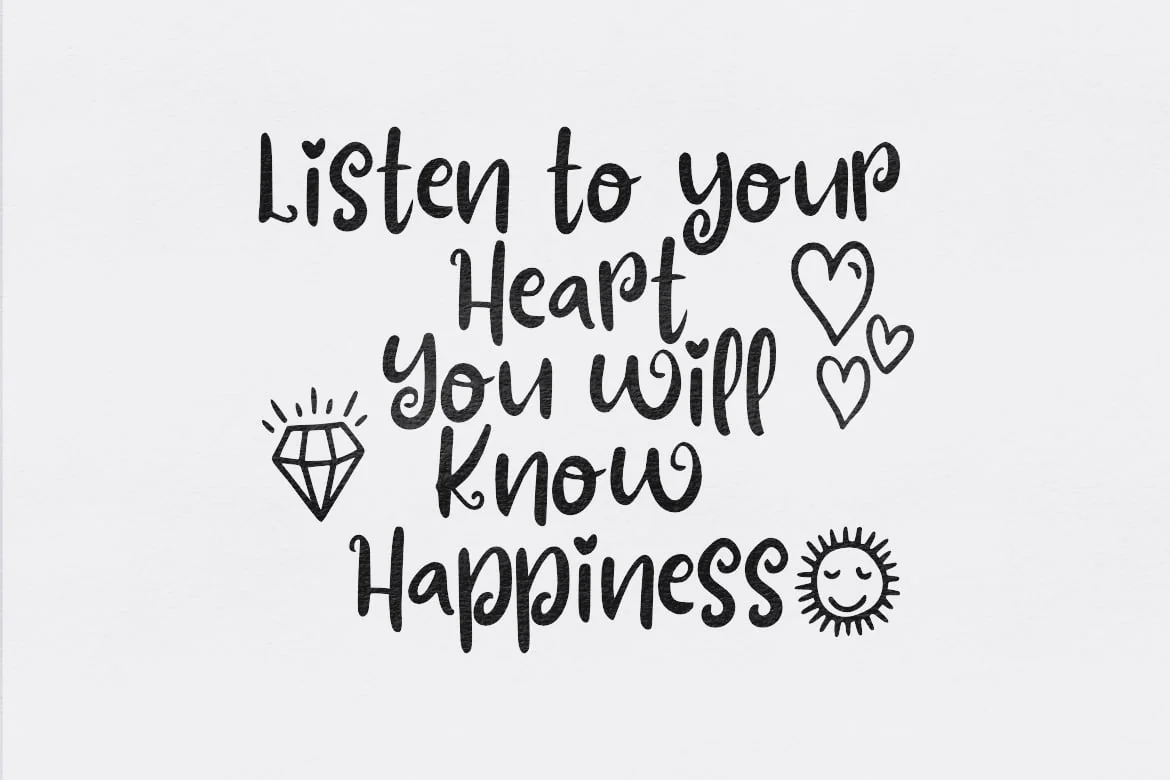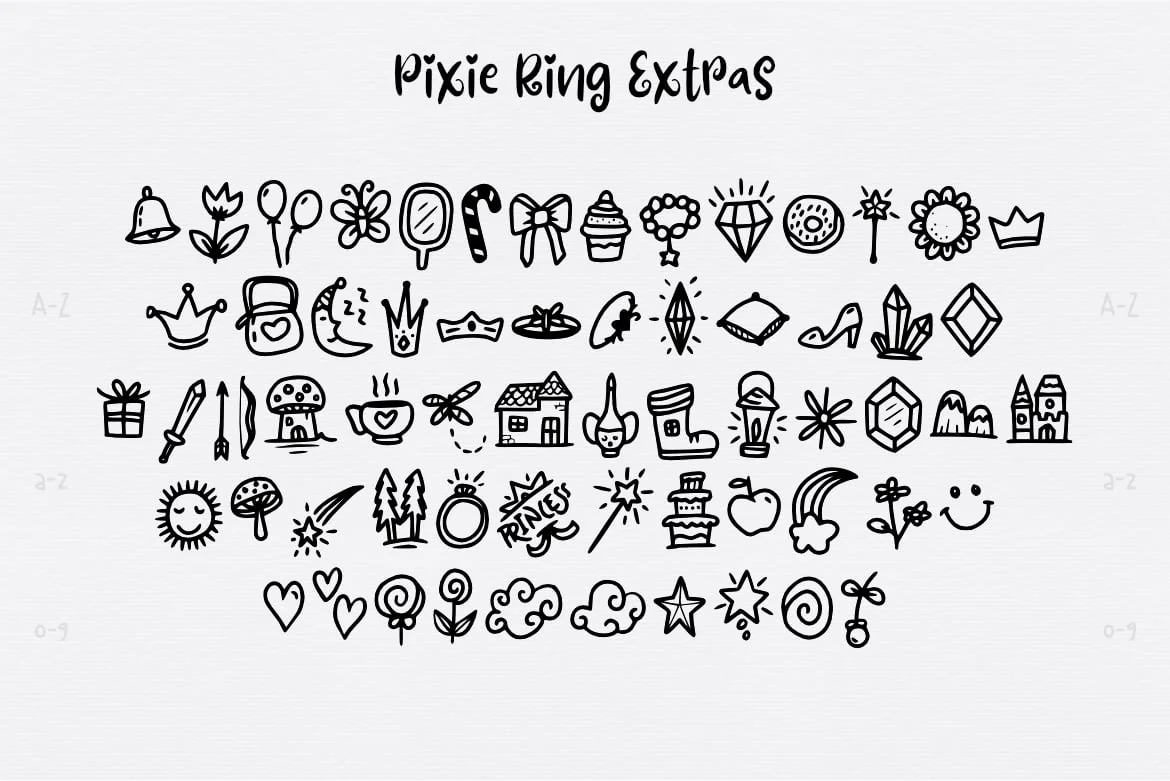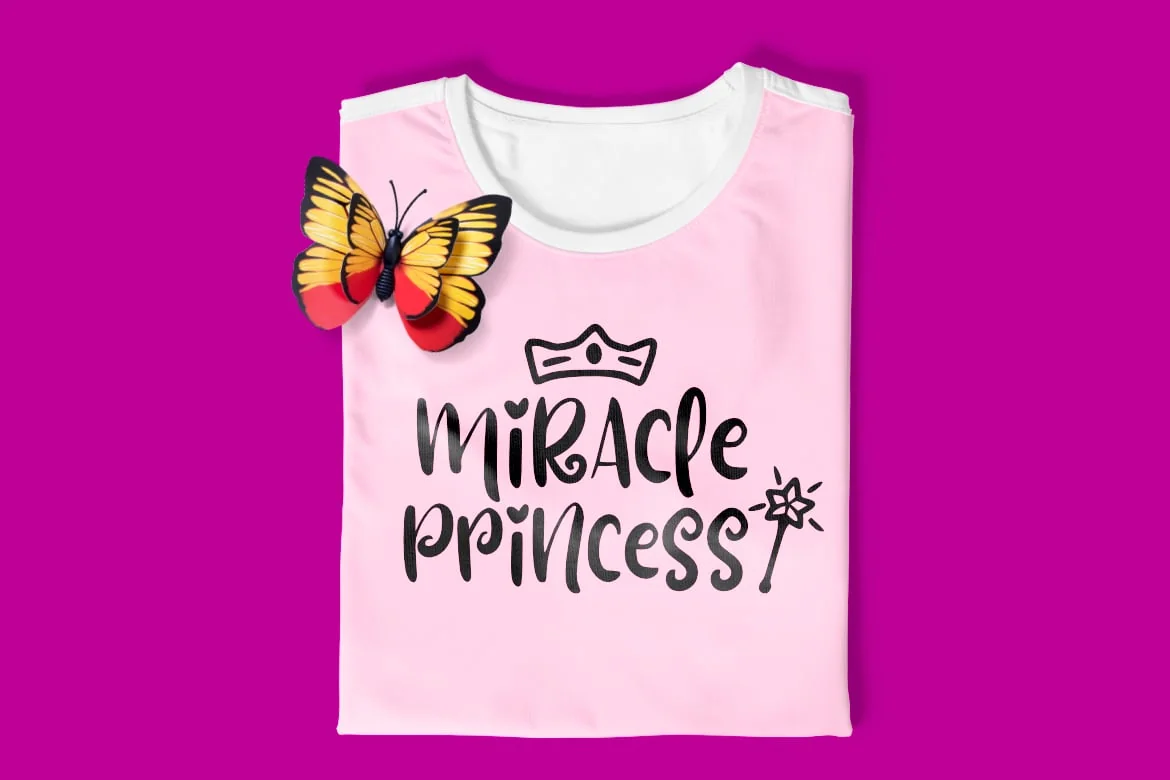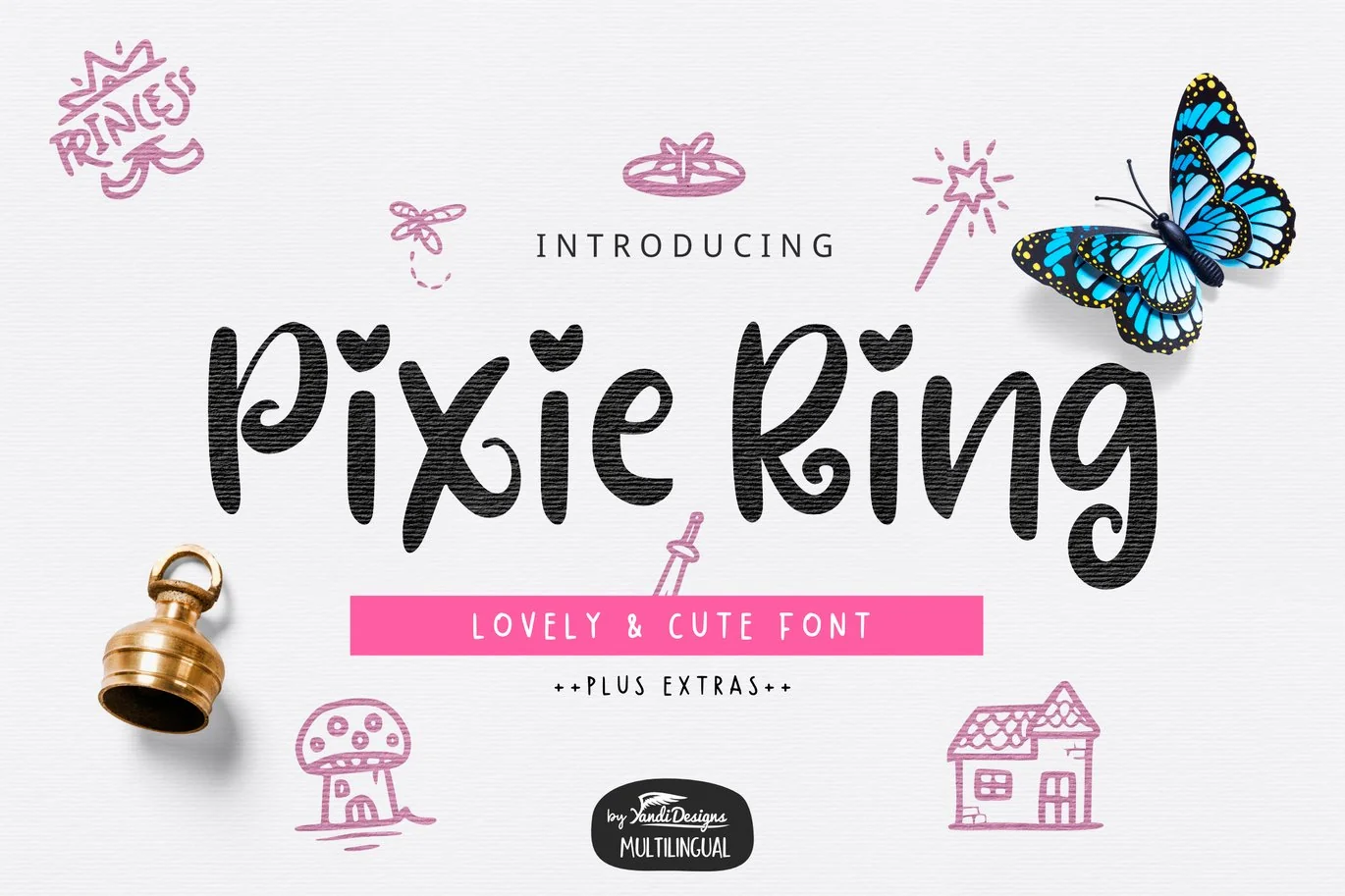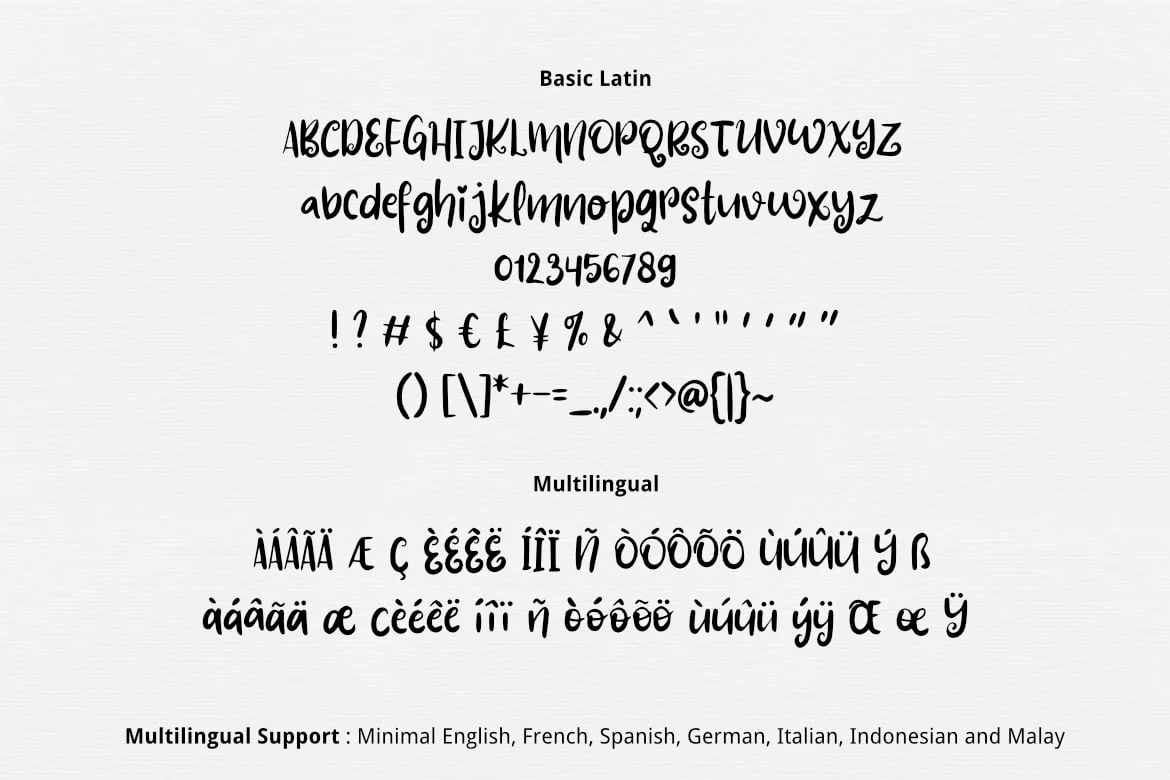
Pixie Ring Font with Illustrations
Pixie Ring Font with dingbat Illustration
Simple lovely cute font , suitable for many project, signature , quotes, logo , doodle, heading , title etc.
Basic Latin + Multilingual
Support : Minimal English , French, Spanish, Germany, Italian, Indonesian and Malay.